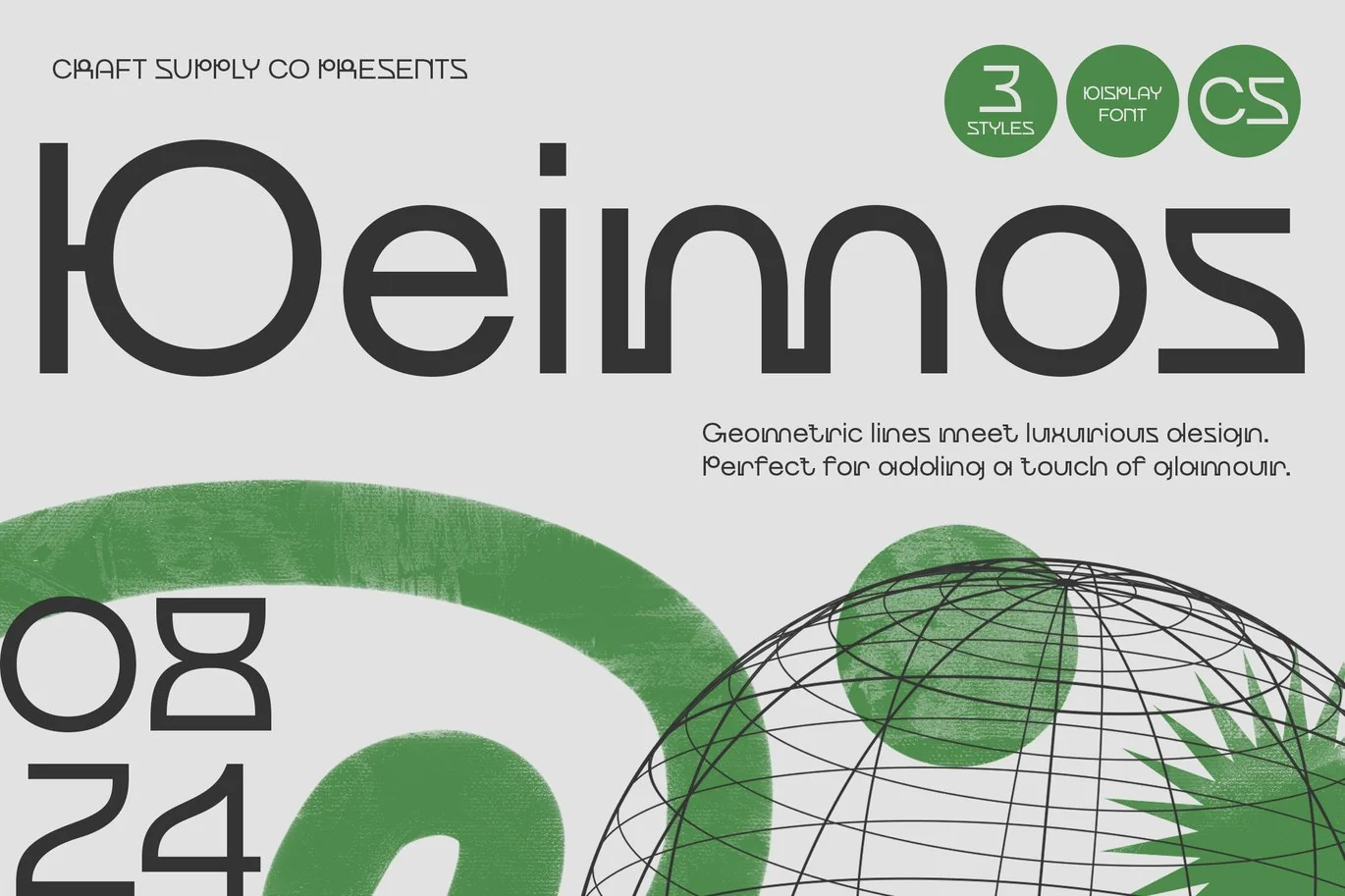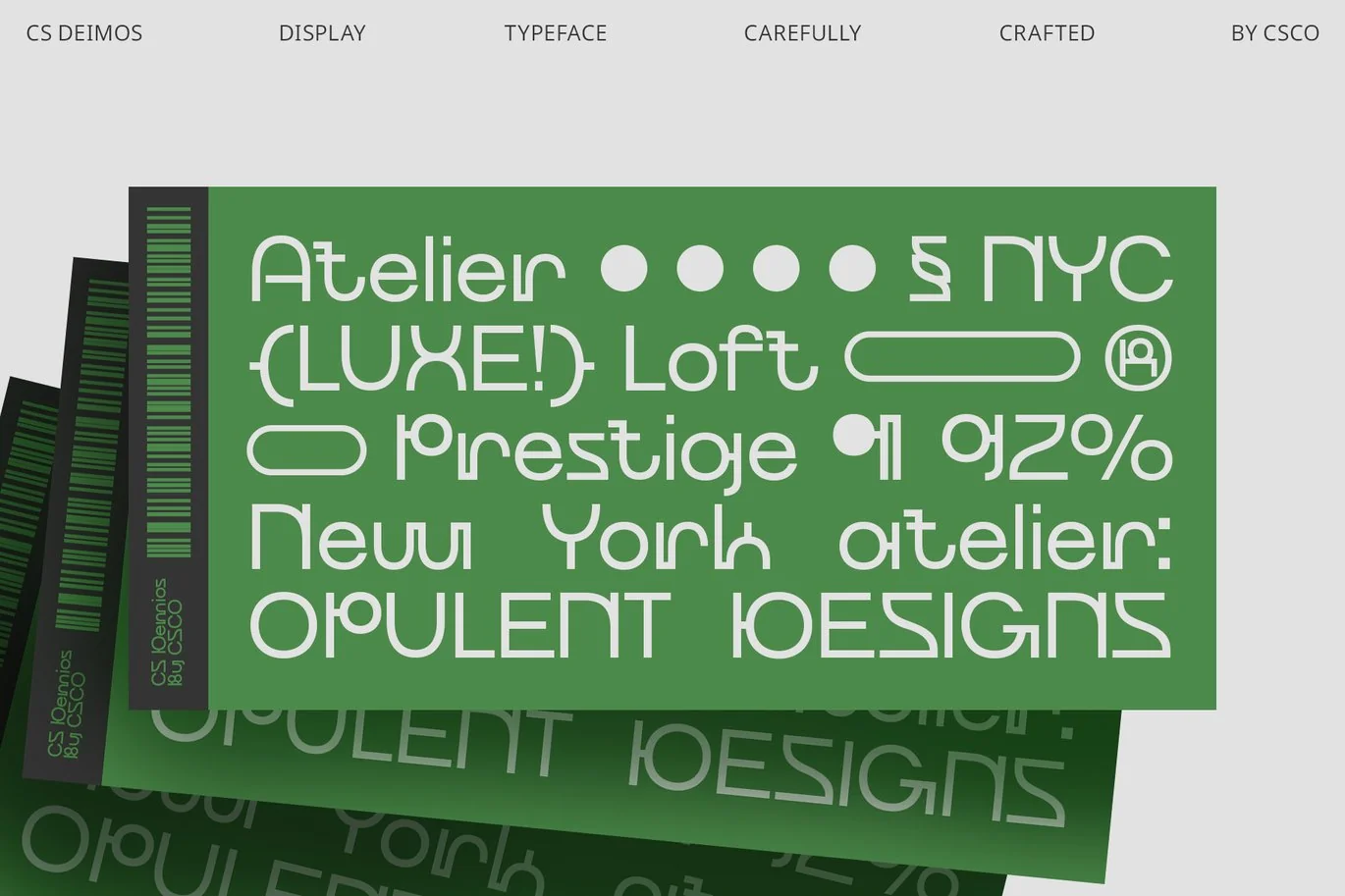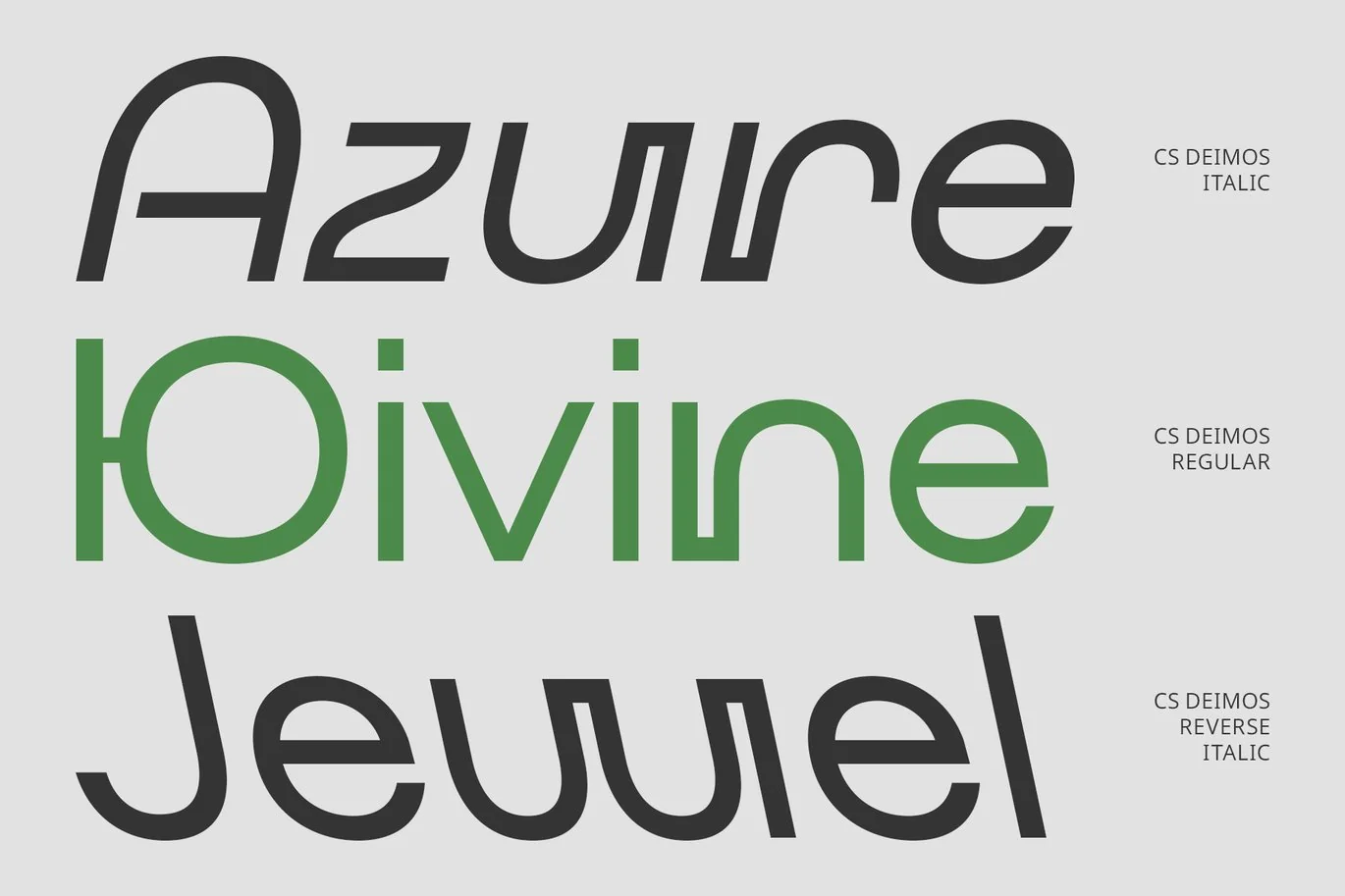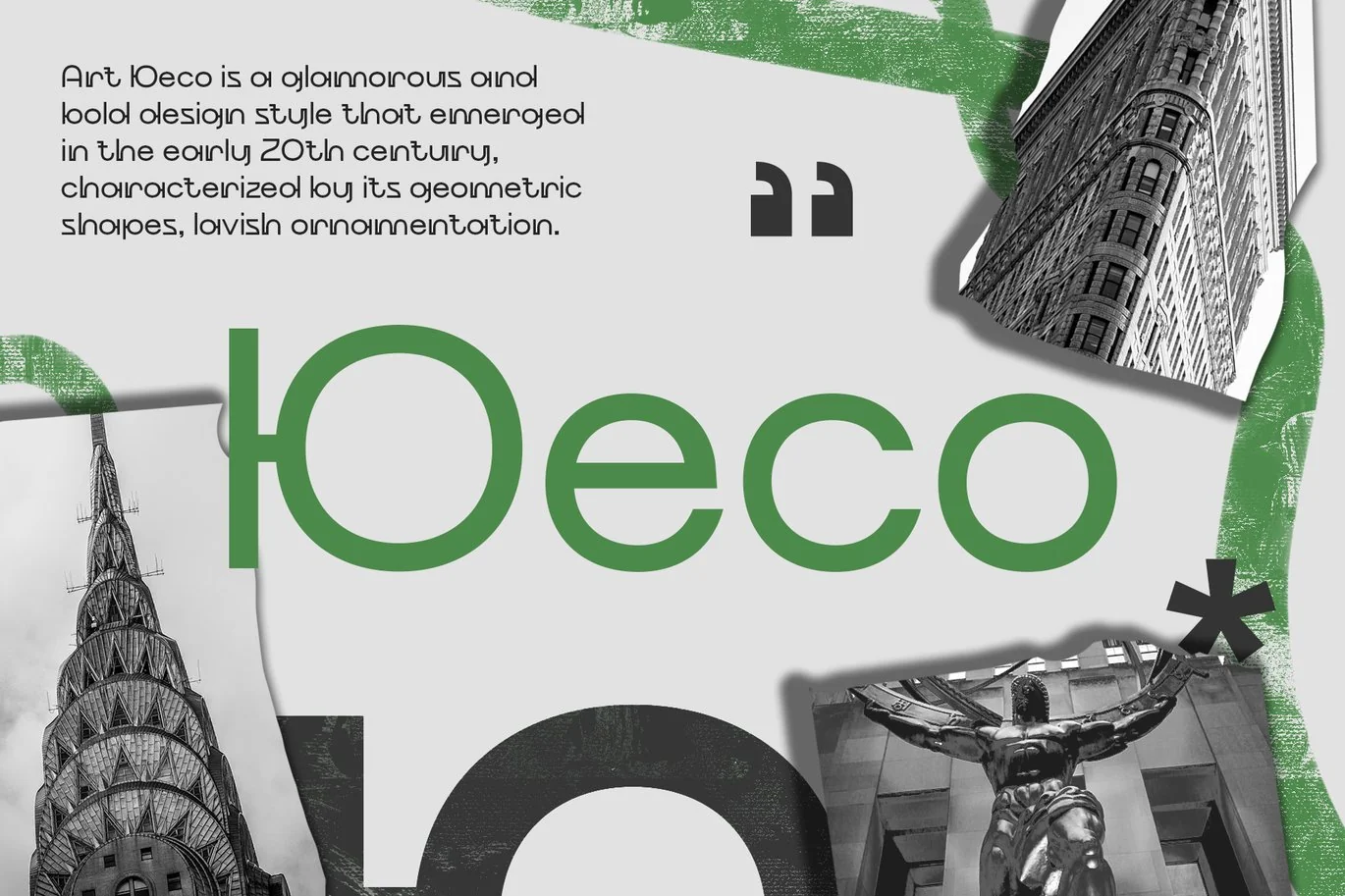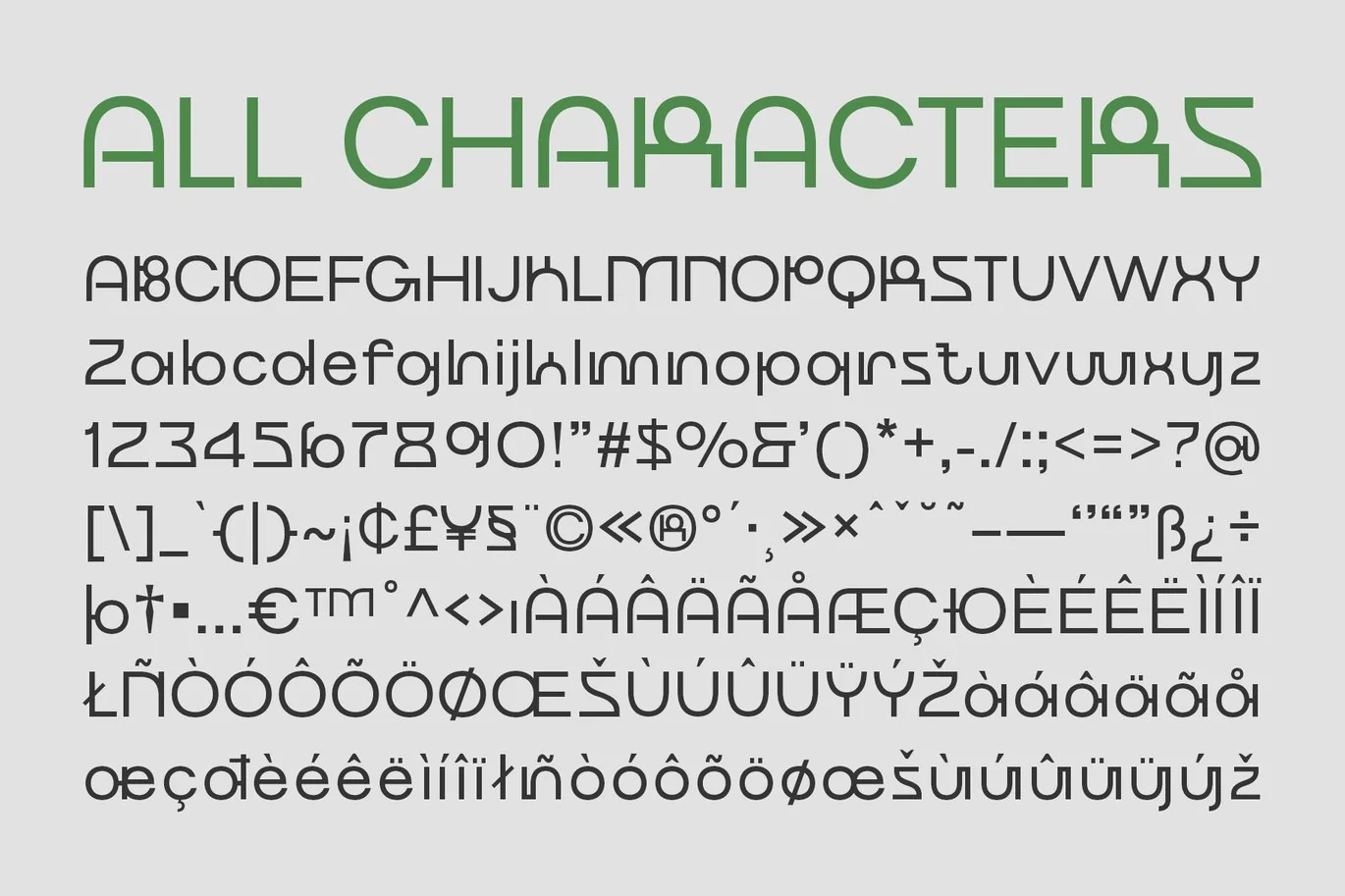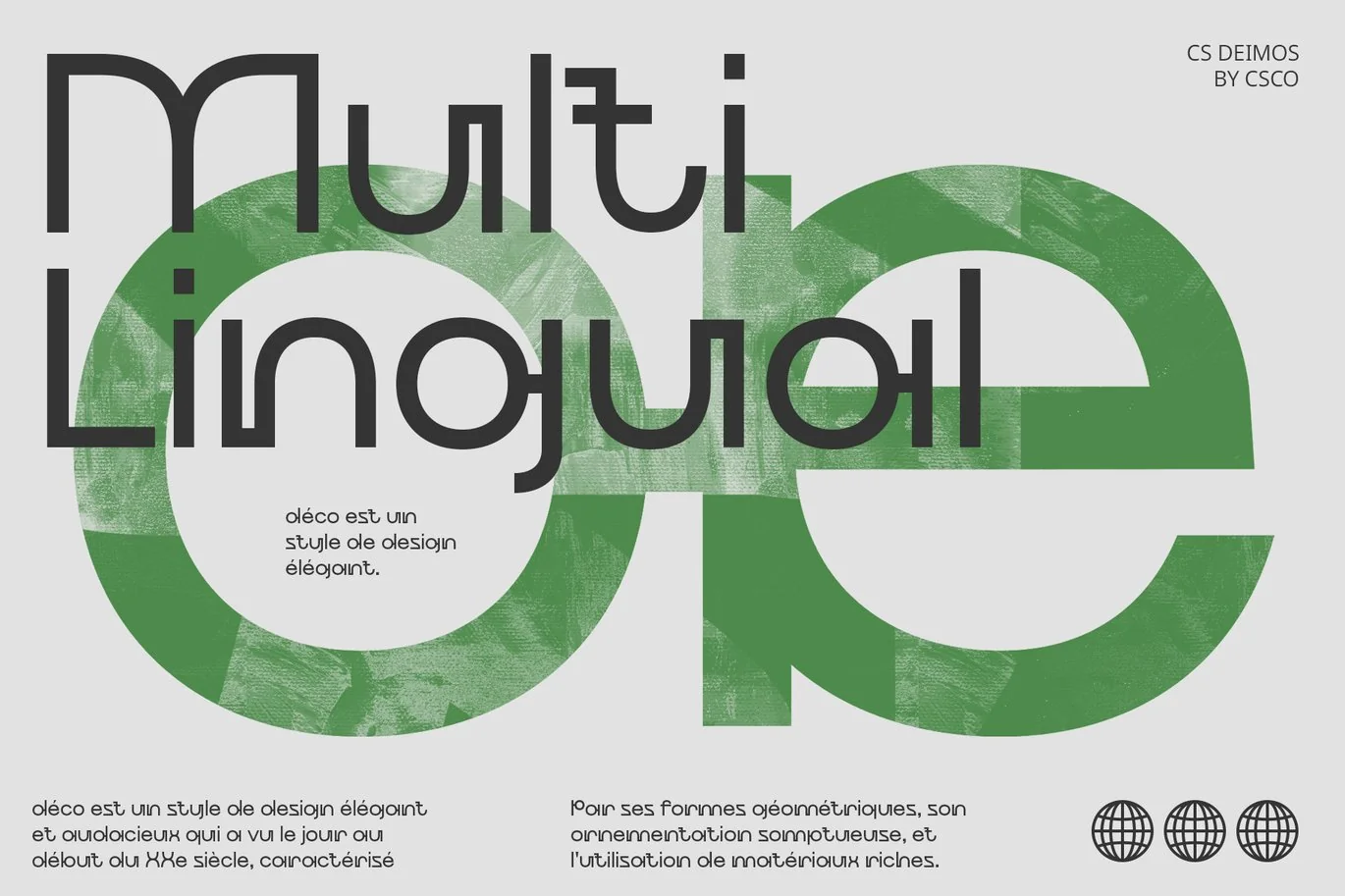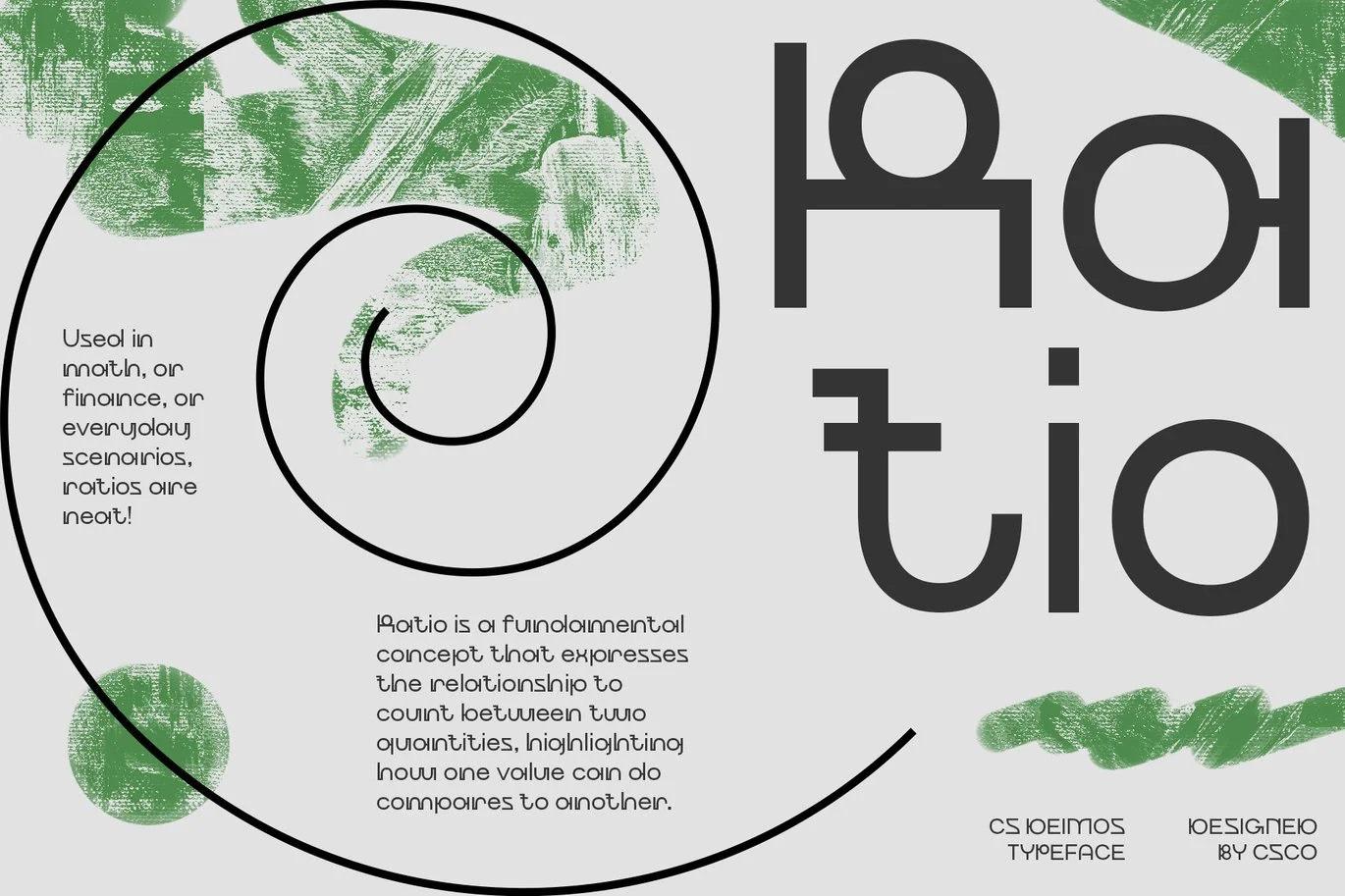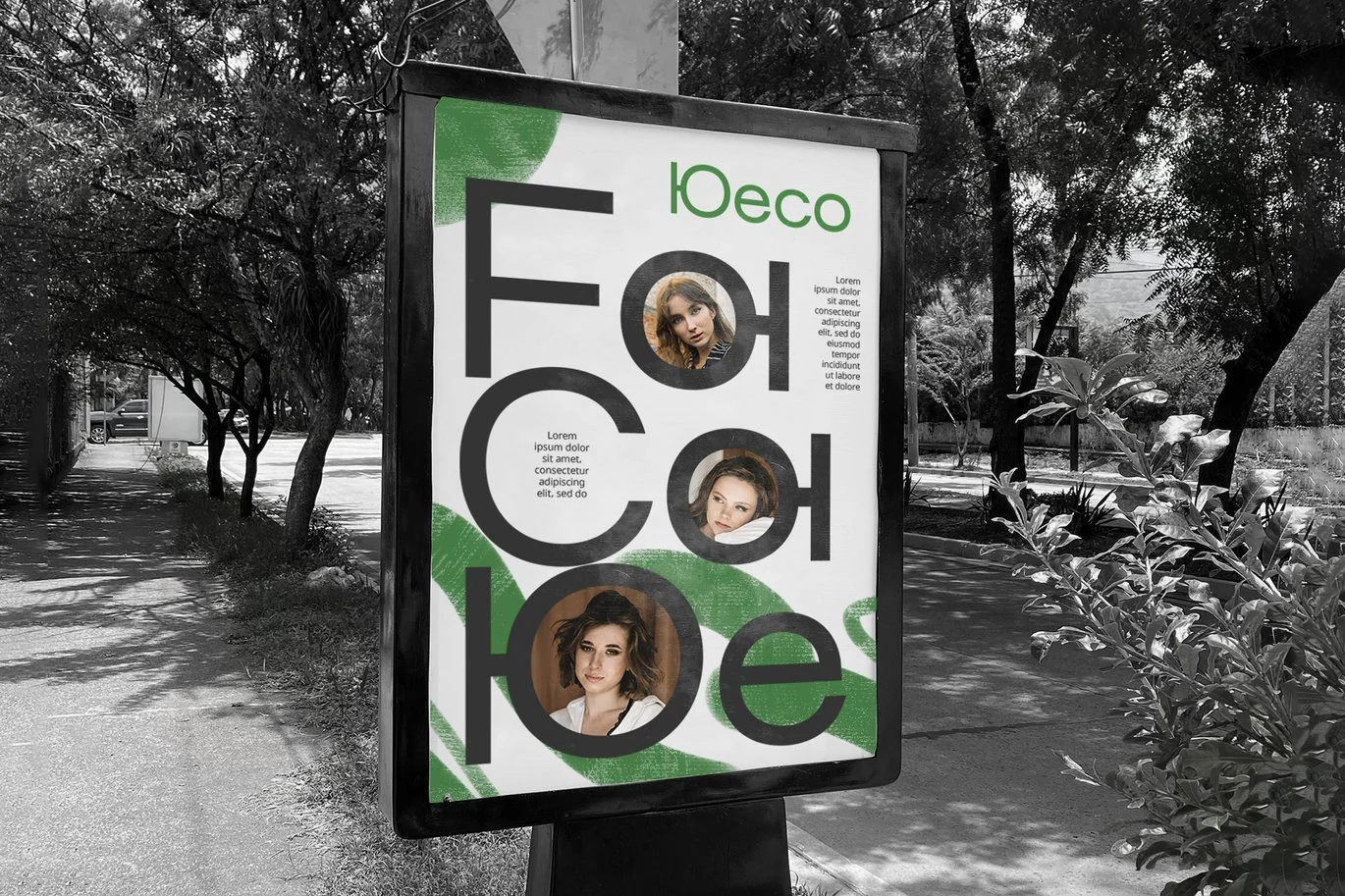
Deimos – Art Deco Font
CS Deimos – Art Deco Font: Glamour and Luxury with a Modern Twist
Distinctive Geometric Elegance
CS Deimos is a contemporary Art Deco display font that exudes glamour and luxury through its unique geometric and symmetrical design. Featuring clean lines, sharp angles, and intricate ornamental details, this font embodies the opulence of the Art Deco era with a modern, sophisticated edge.
Bold and Stable with a Futuristic Flair
The font’s strong vertical and horizontal tendencies provide a solid and stable appearance, while its geometric precision conveys a futuristic vibe. This blend of classic elegance and modern design makes CS Deimos ideal for projects requiring a touch of vintage charm with a contemporary twist.
Perfect for Elegant and Impactful Designs
Whether used for posters, invitations, or branding, CS Deimos adds a bold visual impact and emphasizes luxury and sophistication. Its combination of refined details and modern aesthetics ensures that your designs stand out with a striking, elegant presence.